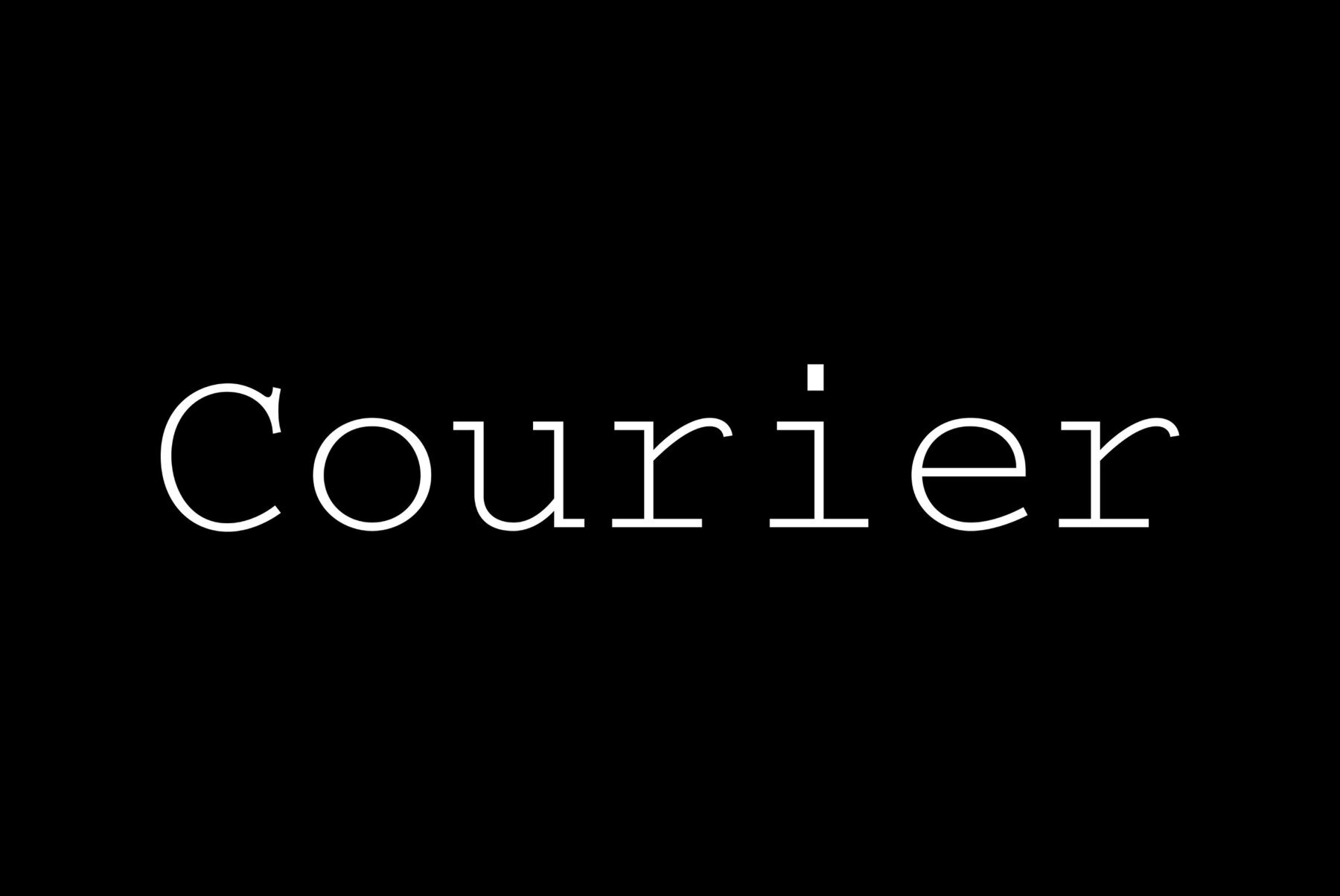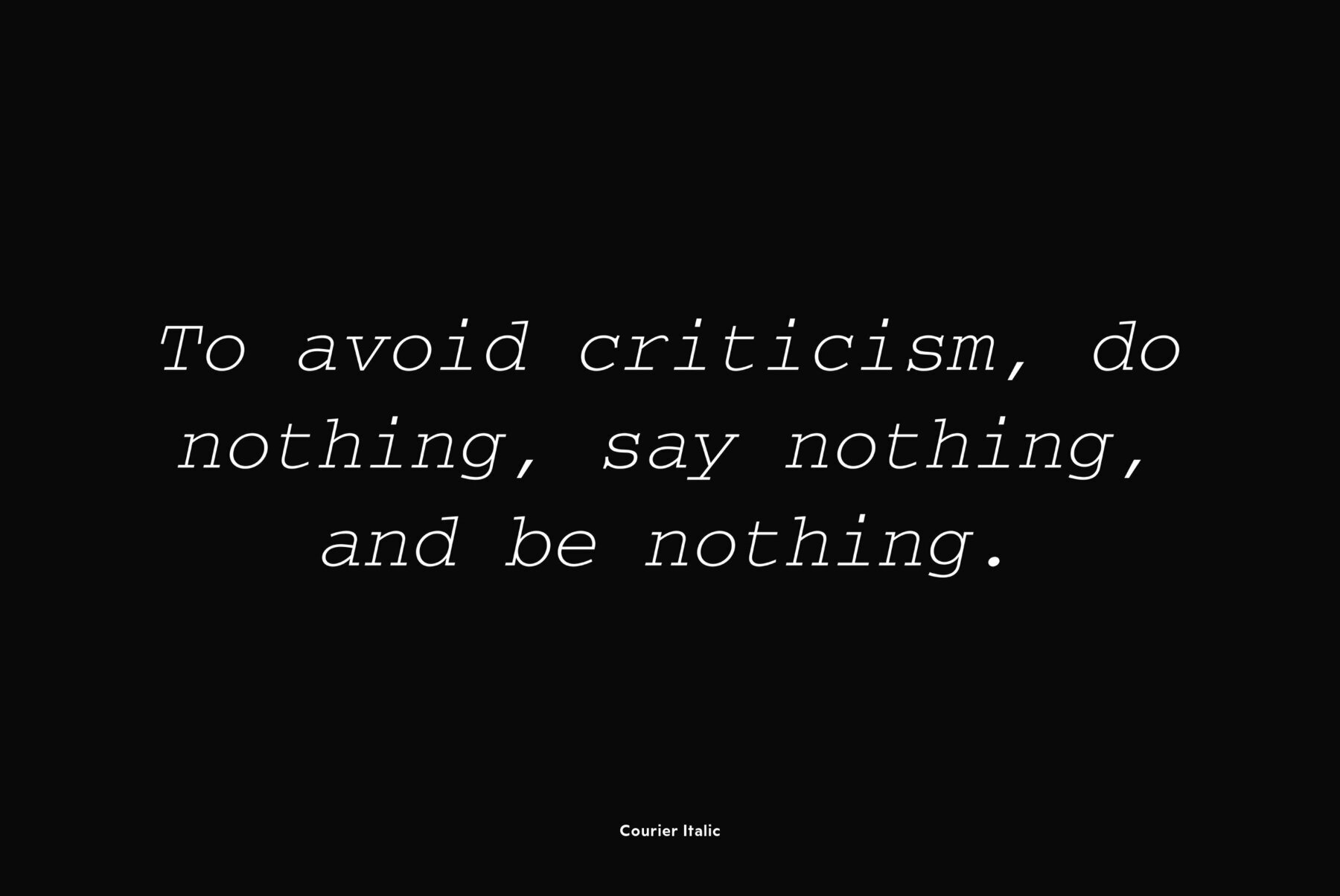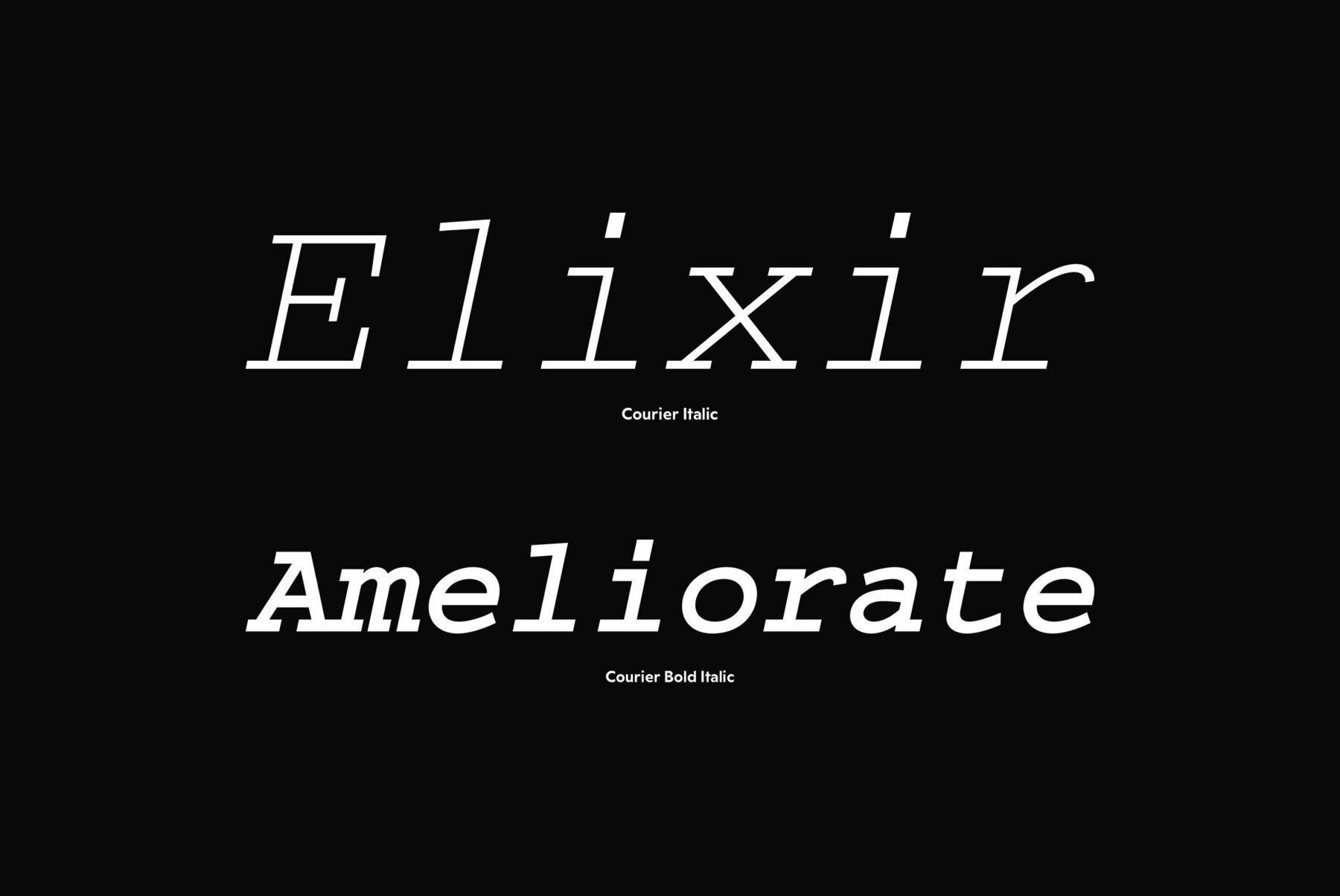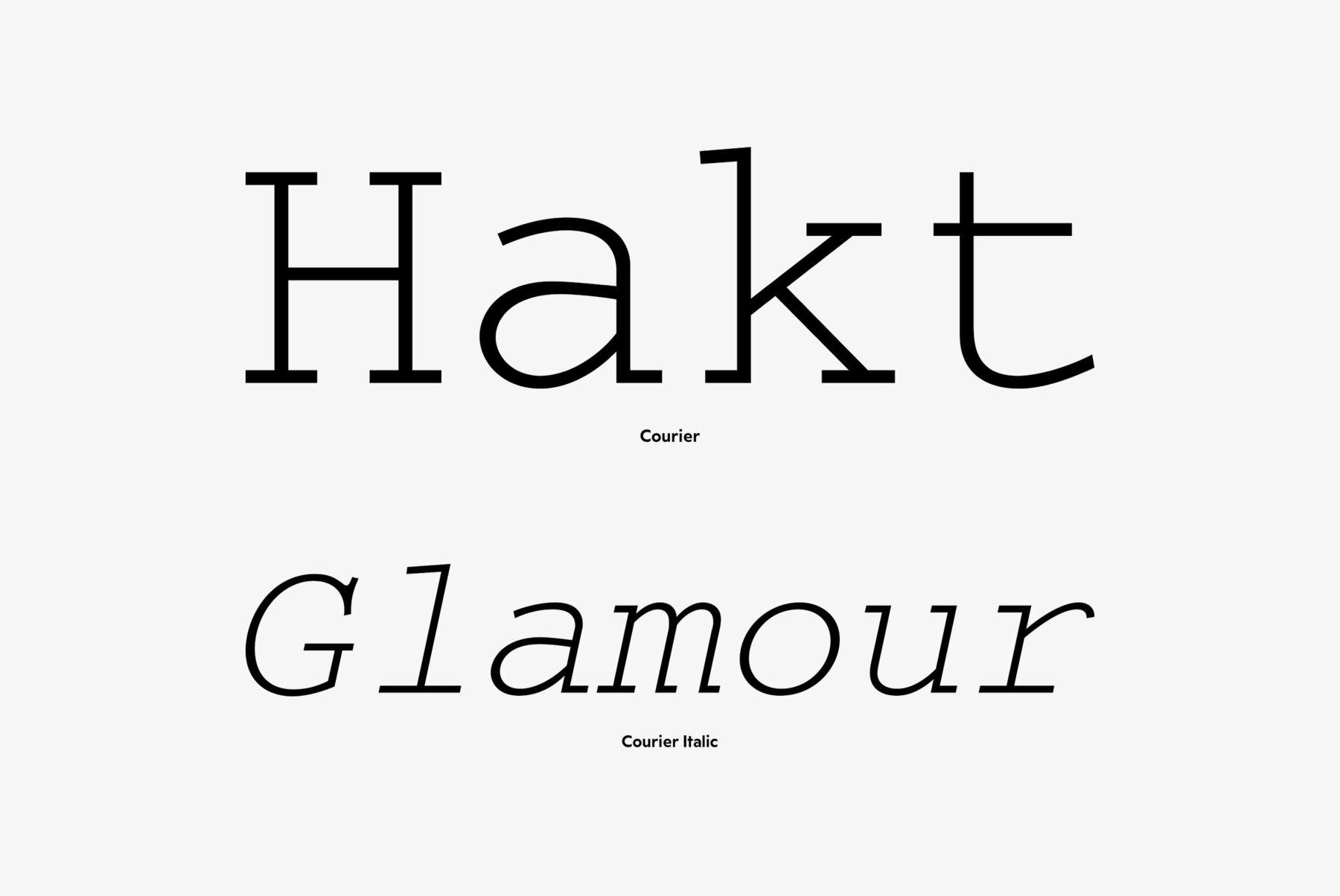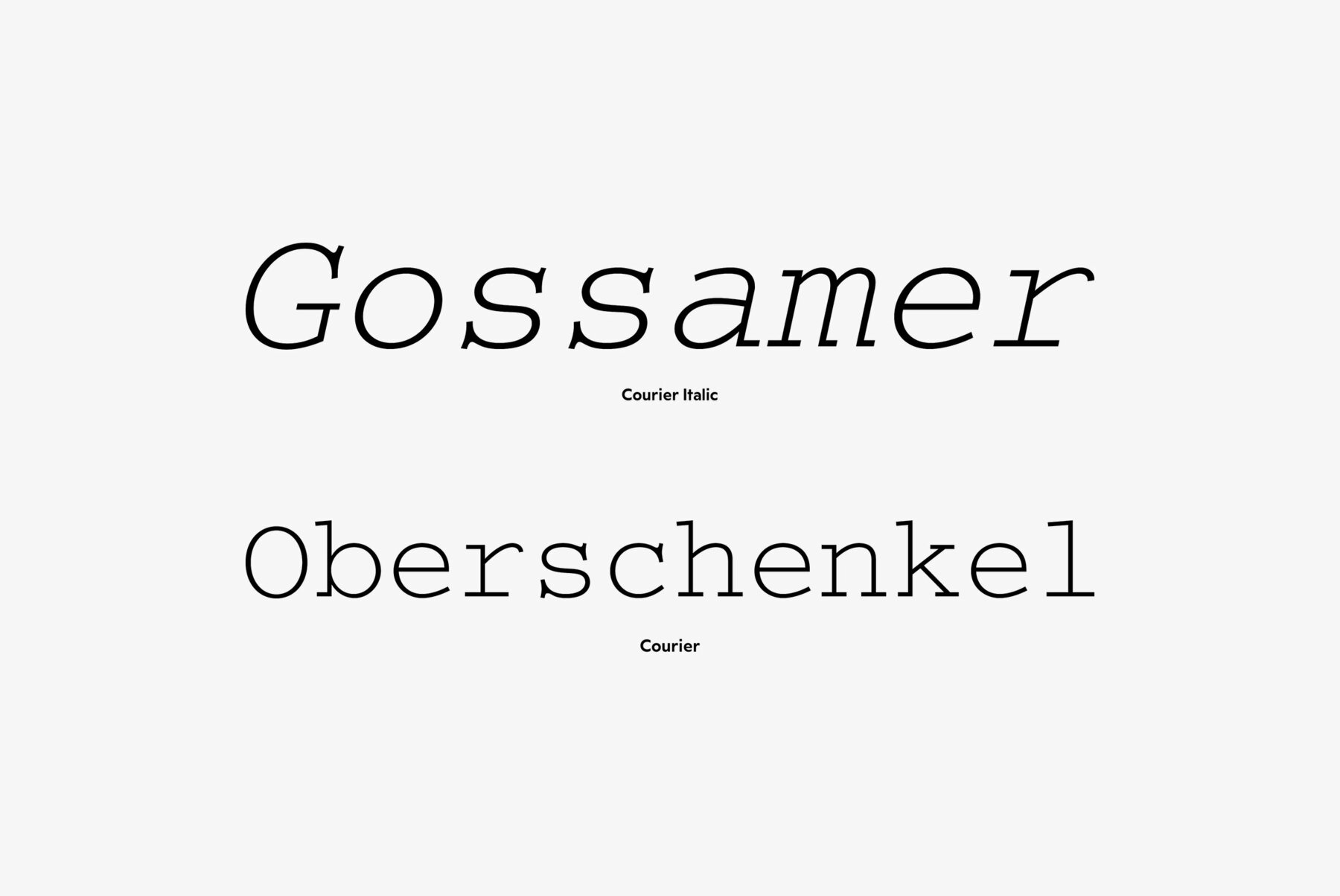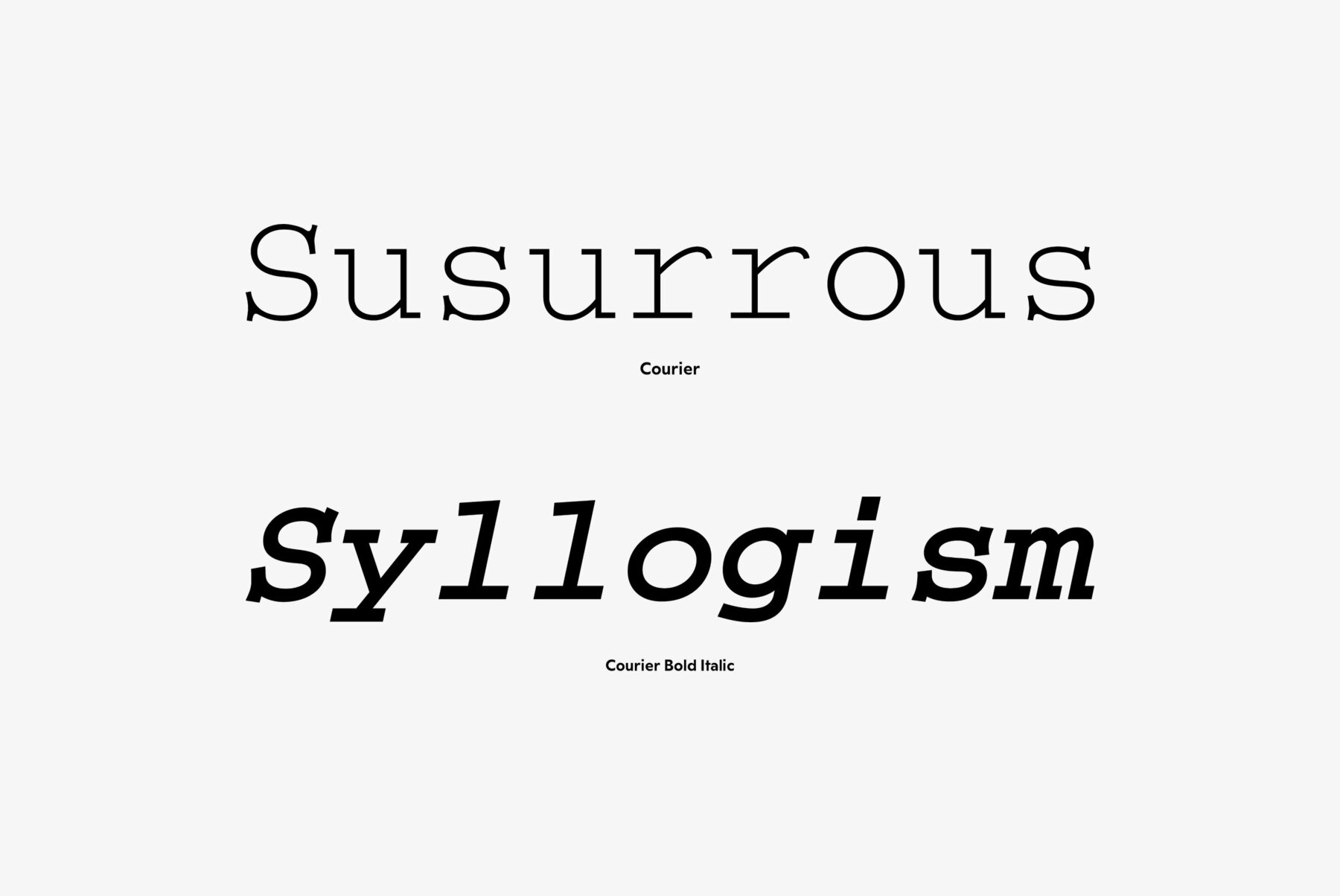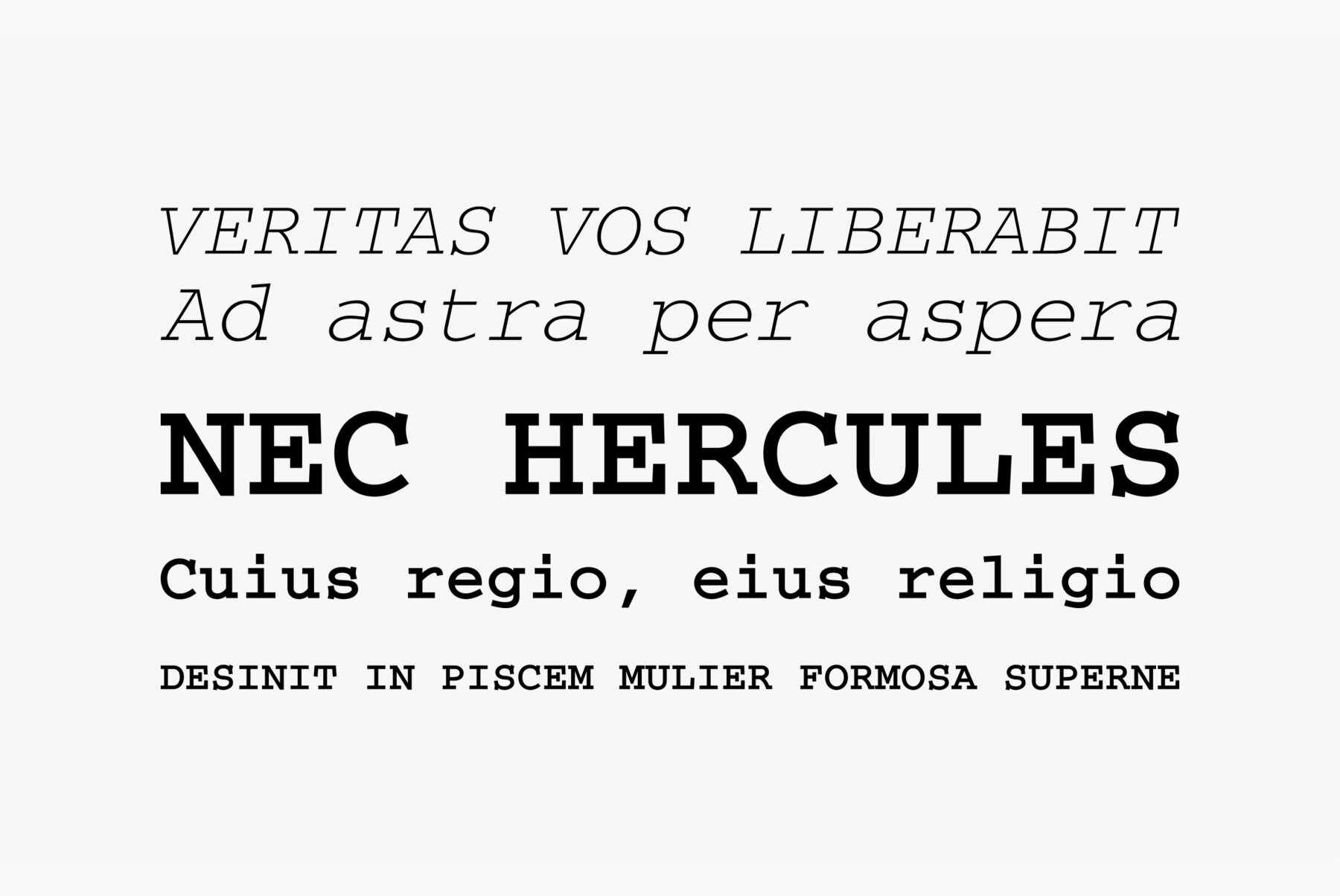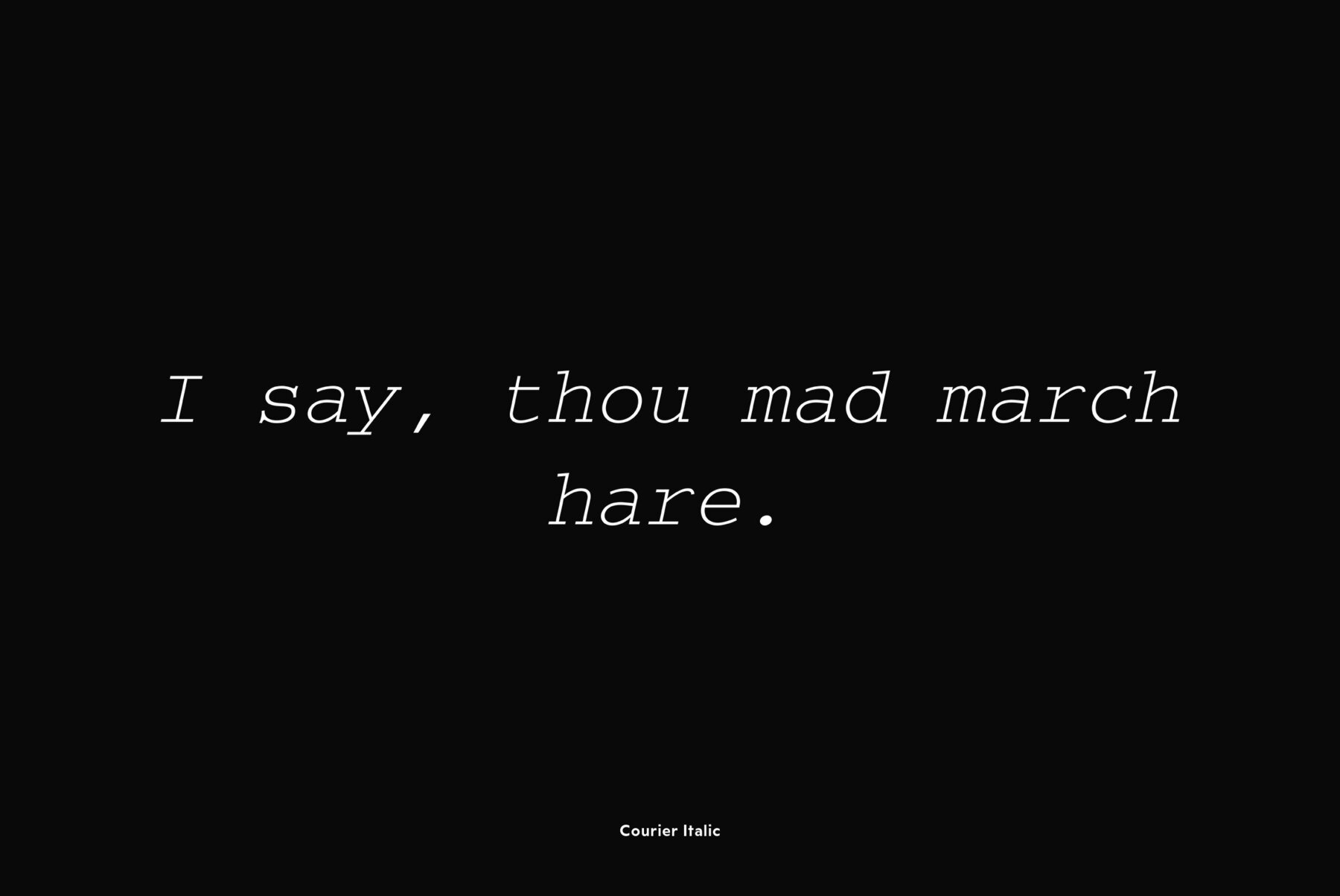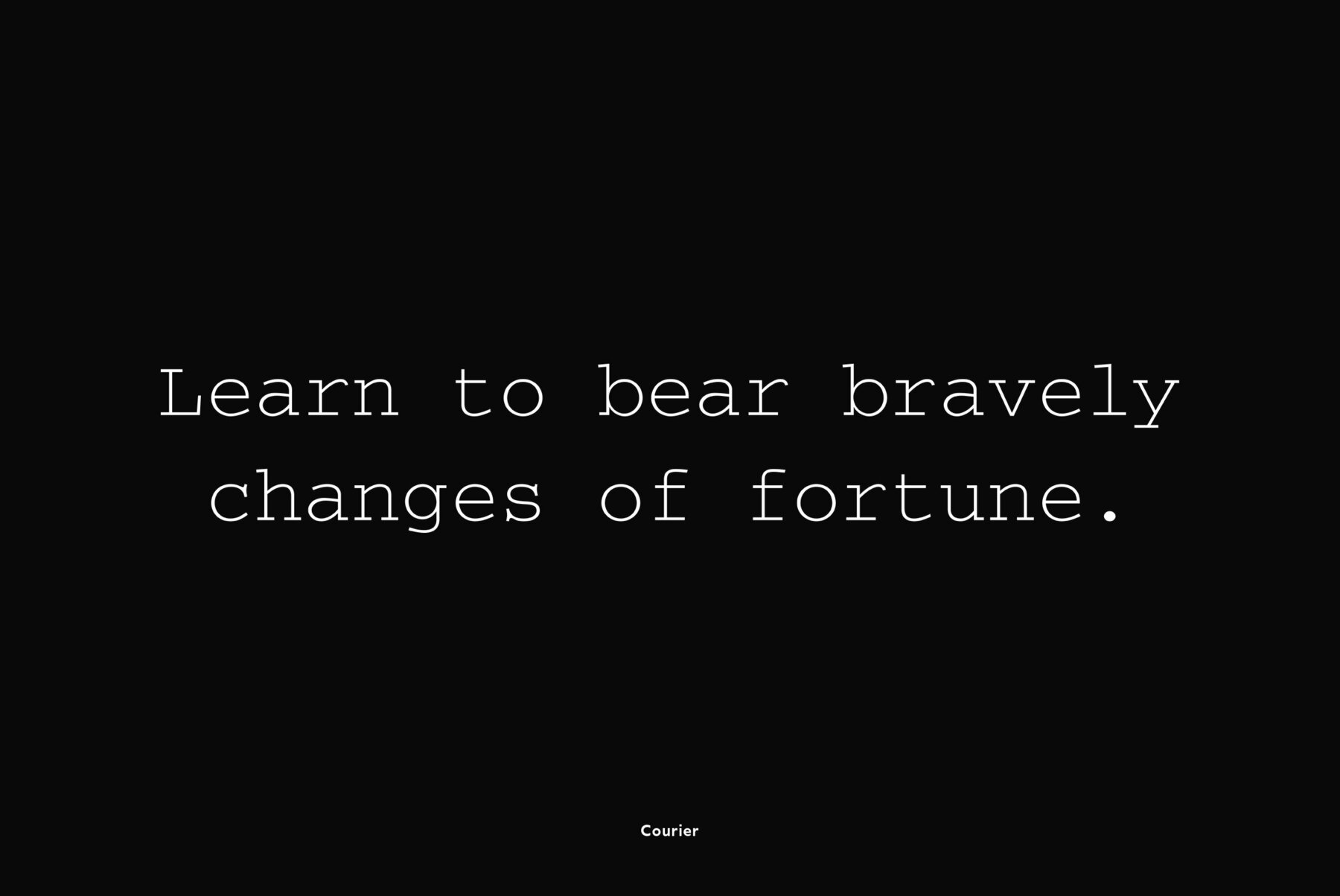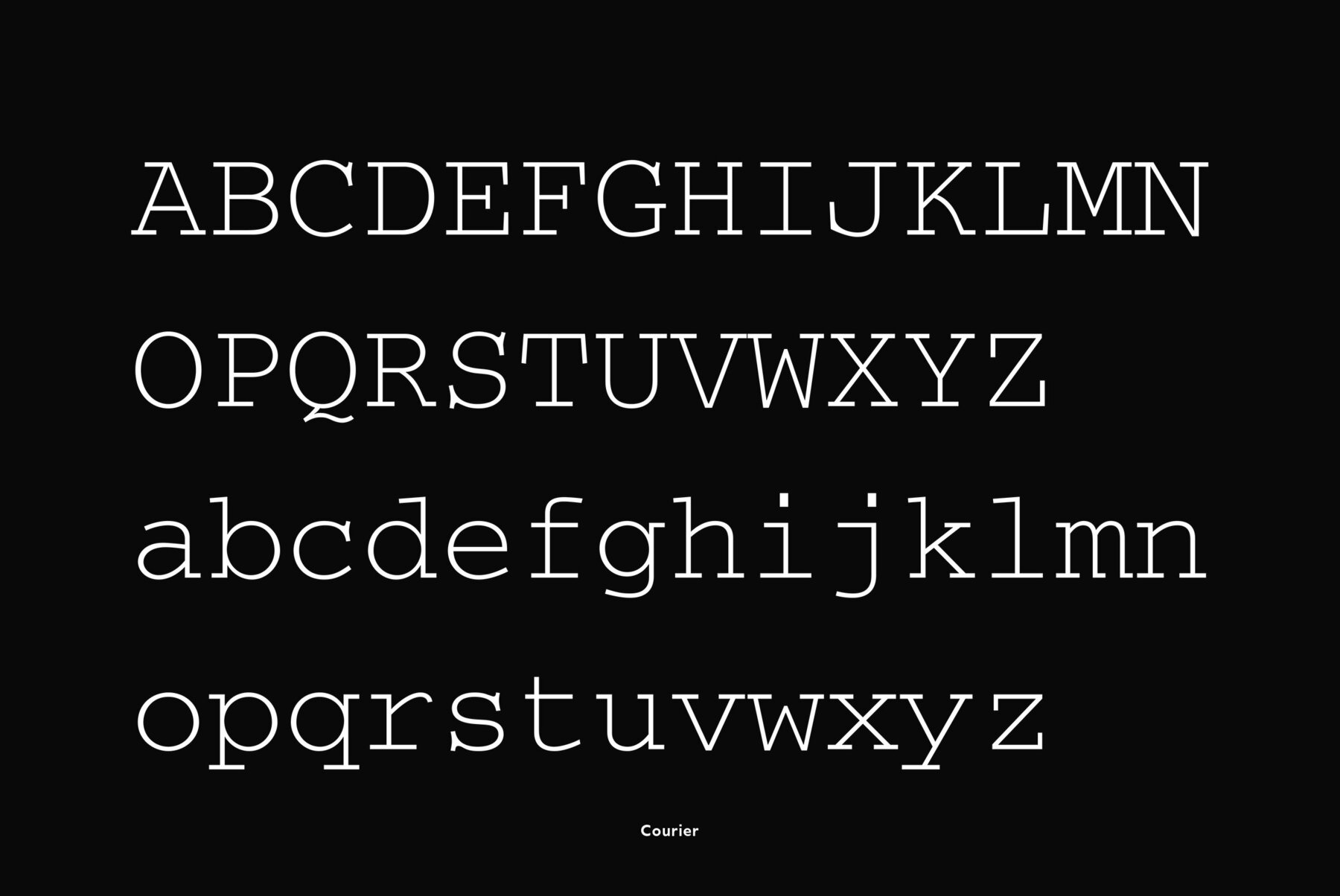
Designed at ParaType (ParaGraph) in 1990 by Tagir Safayev. Based on Courier typewriter face of International Business Machines, 1956, by Howard Kettler. The decorative styles were added in 1997 by Alexander Tarbeev.